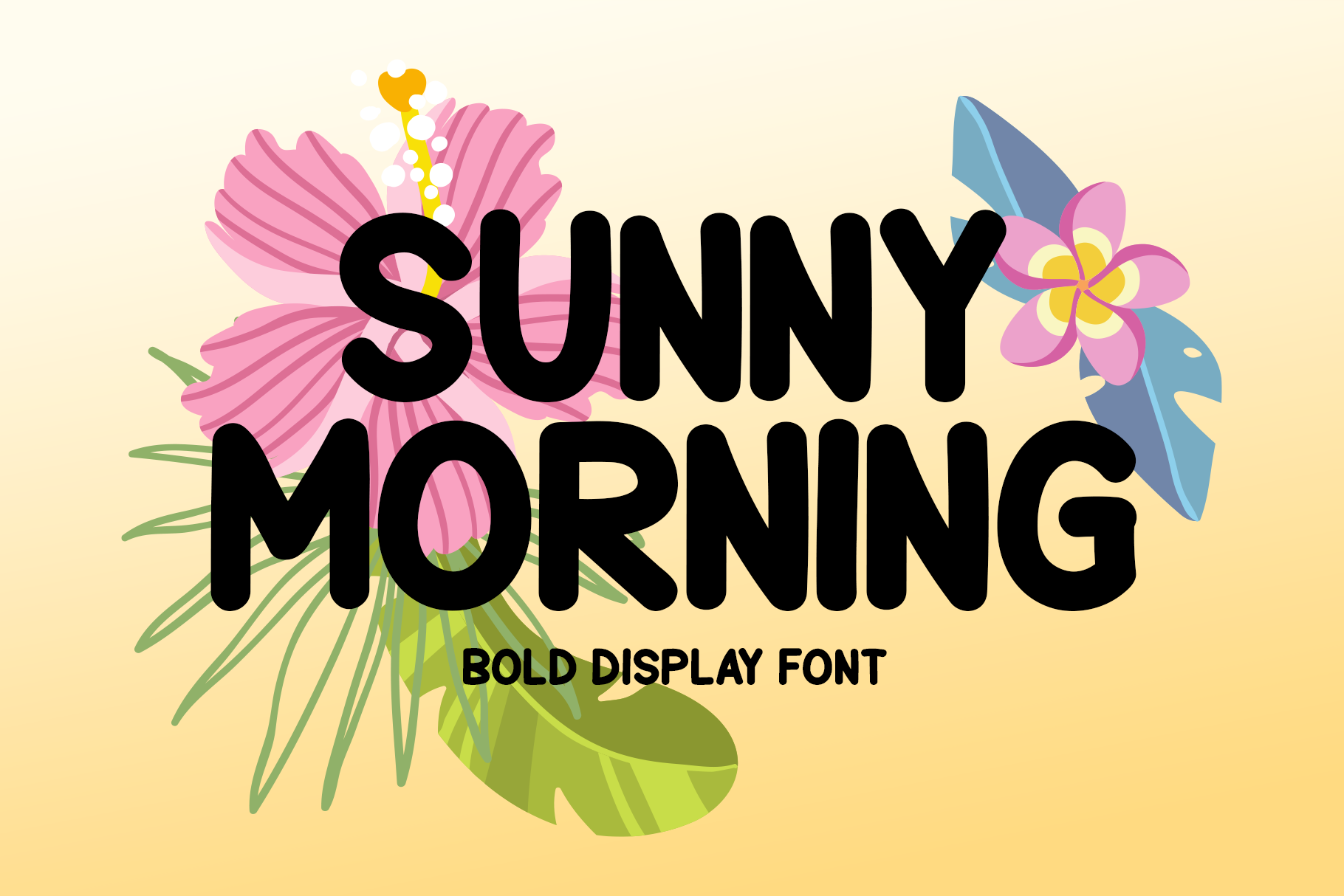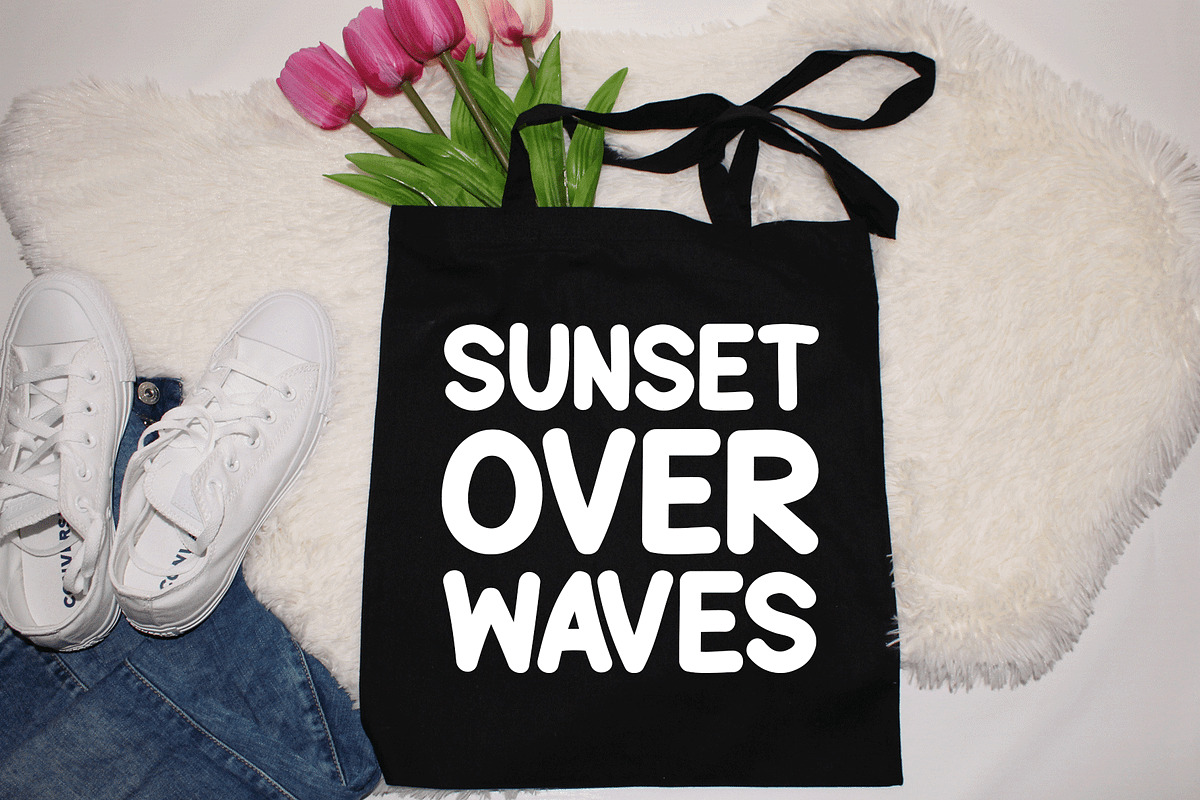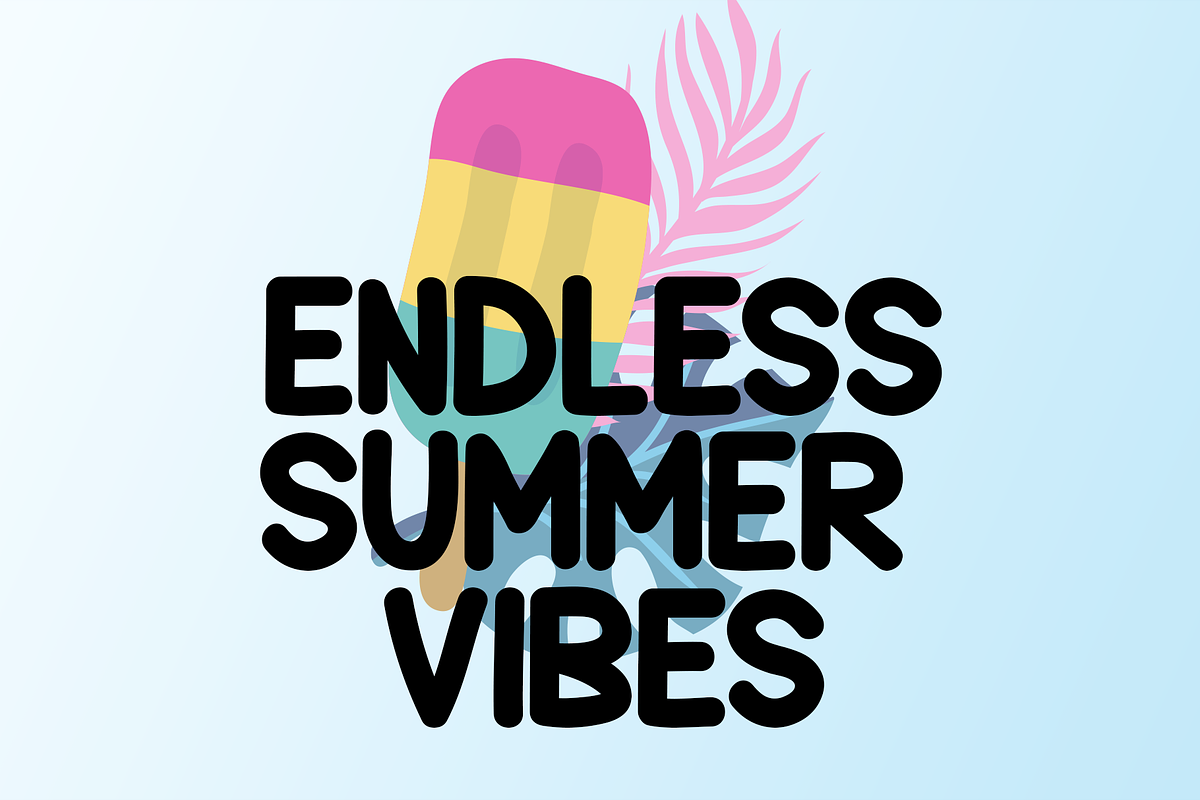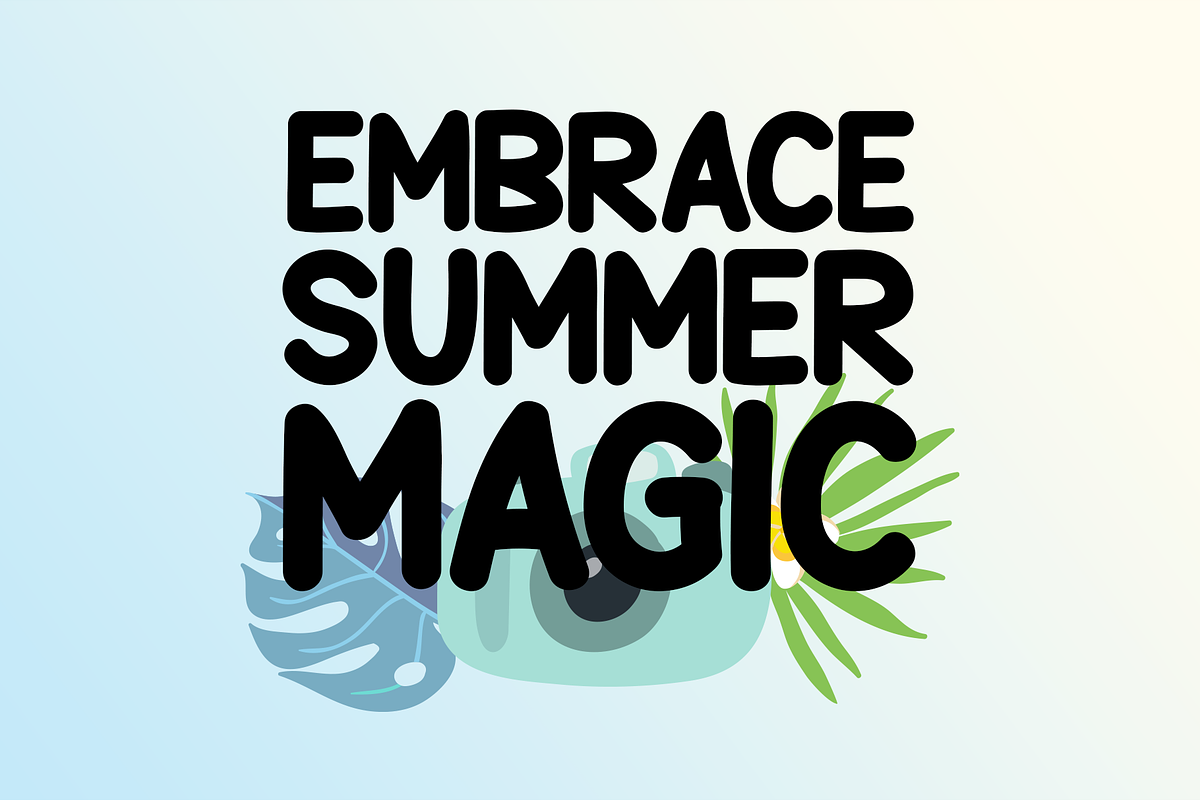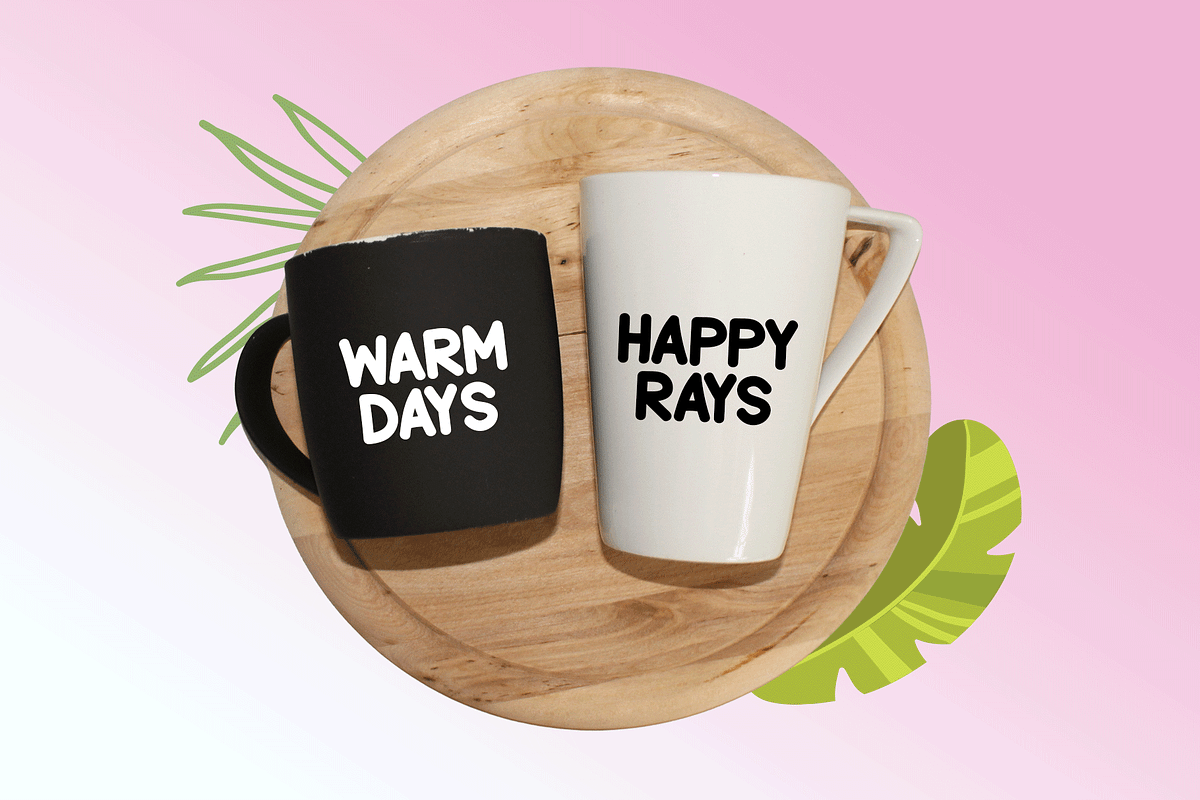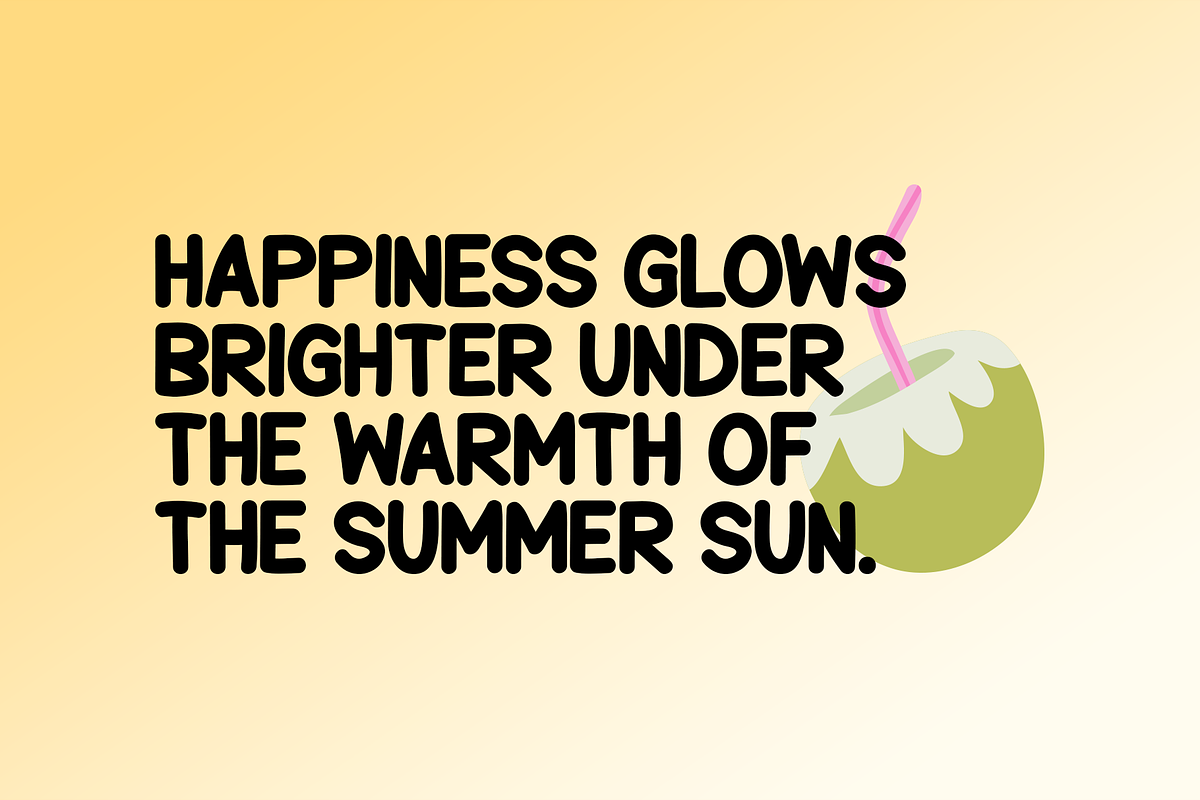
Sunny Morning Typeface
Introducing Sunny Morning!
Sunny Morning is a bold and energetic display font that brings a vibrant and confident presence to your designs. With its strong lines and eye-catching style, this font is ideal for making bold statements across various creative projects. Whether you're designing logos, stationery, t-shirts, or print materials, Sunny Morning adds a burst of personality. It's also perfect for website headers, posters, flyers, music covers, and more—giving your visuals a striking and memorable look.
Includes a range of multilingual support